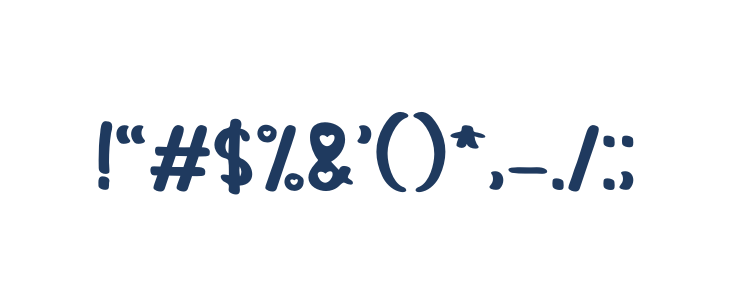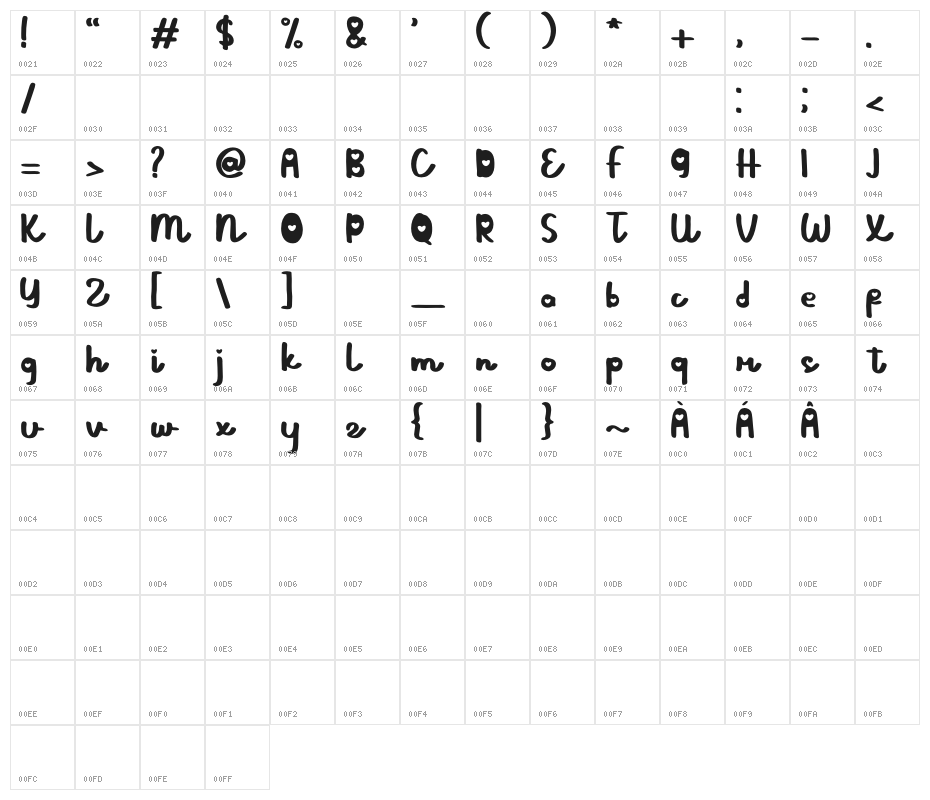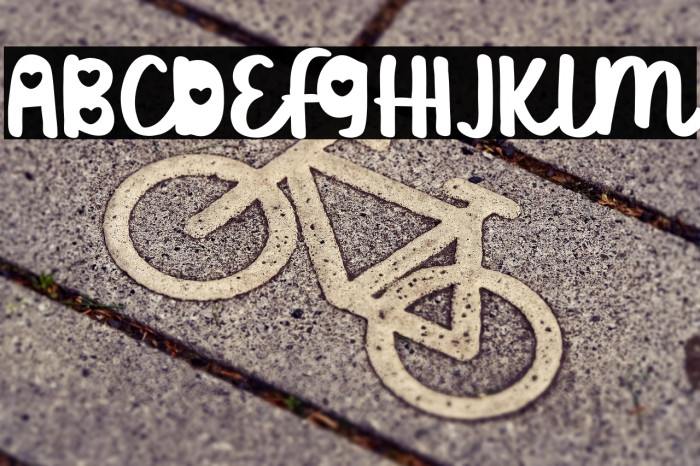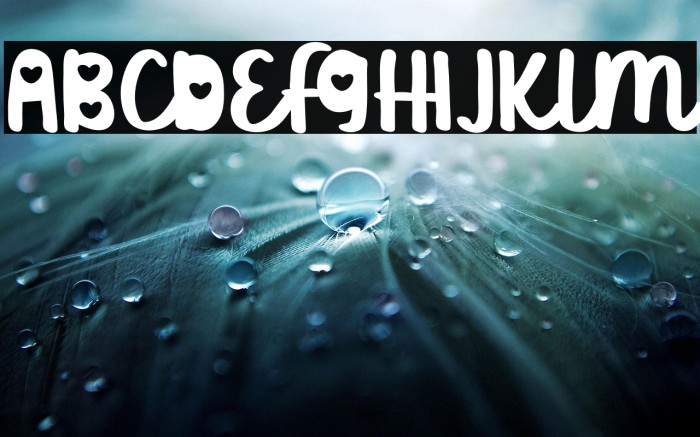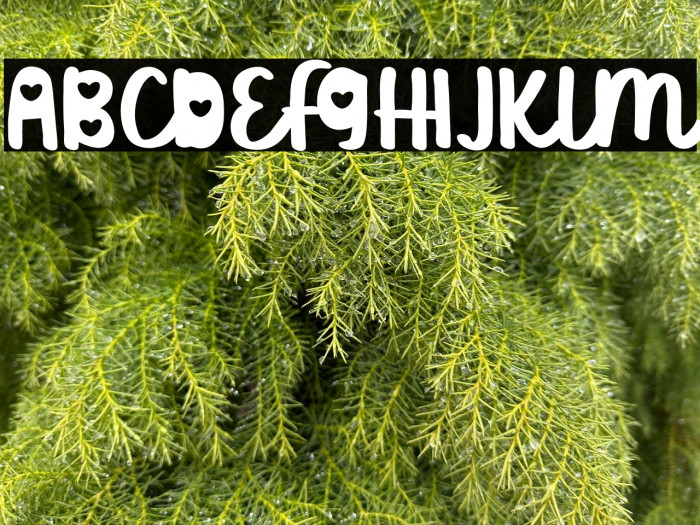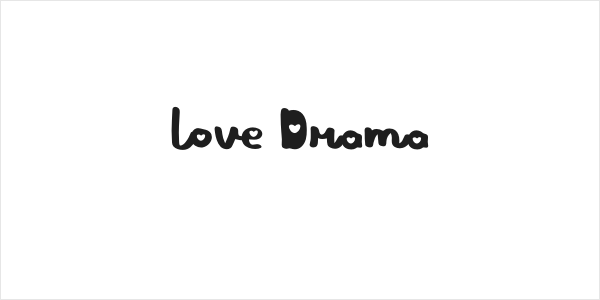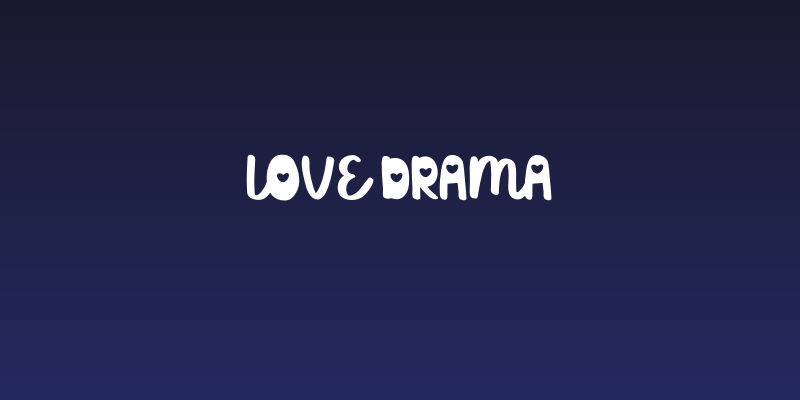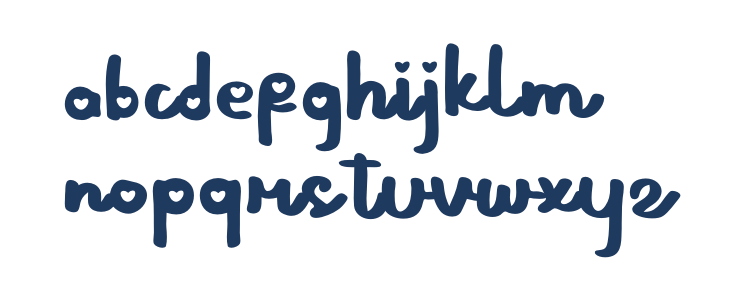
Love Drama Font
Love Drama Description
This playful and bold font features a handwritten style with a lively and energetic appearance. The letters are rounded and slightly irregular, giving it a casual and friendly feel. The uppercase and lowercase letters maintain a consistent flow, with some characters having unique flourishes that add to its charm. The numbers and special characters are equally expressive, making it versatile for various creative projects. Its thick strokes and smooth curves make it highly legible, even at smaller sizes, while the whimsical design adds a touch of fun and personality.
| Proposed Projects | Ideal for greeting cards, children's books, playful branding, and social media graphics. |